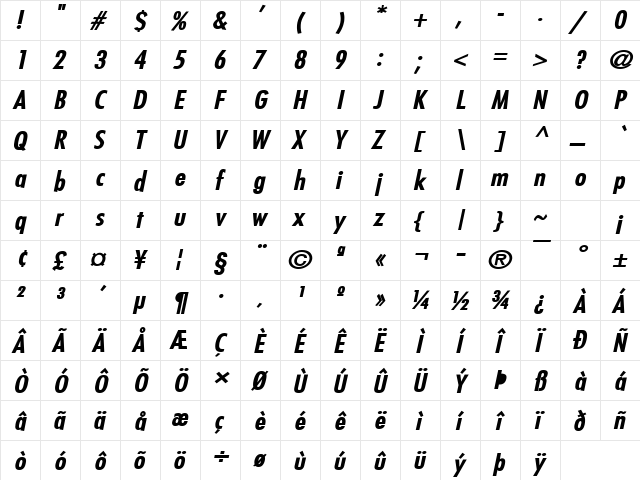
Fuji-Extended Bold Italic Font Preview
Design Context for Fuji-Extended Typeface
Fuji-Extended takes a measured approach to typography — its balanced proportions and neutral character make it a reliable workhorse for both digital and print work. The dynamic lean of this cut emphasises speed and emphasis in any layout. Its bold stroke weight gives it real presence on the page.
Pro Tip: Try Fuji-Extended for annotation and caption copy alongside an upright companion — the contrast in angle creates a dynamic but ordered typographic system.